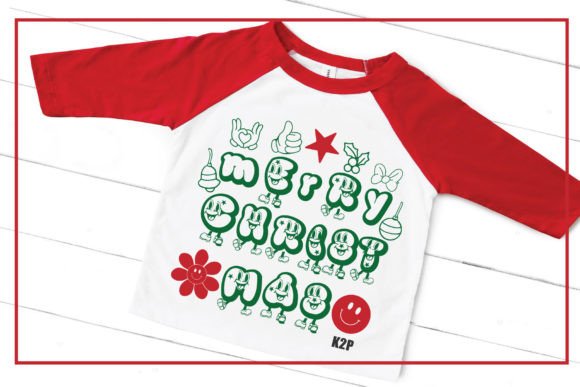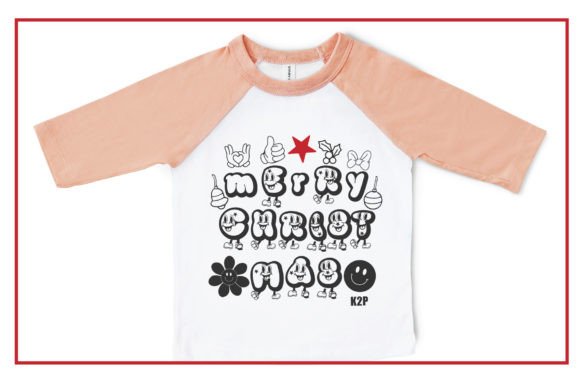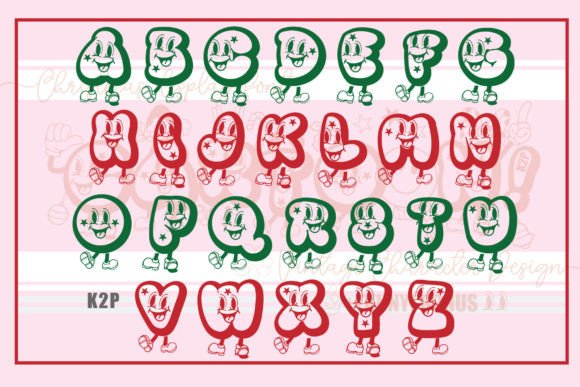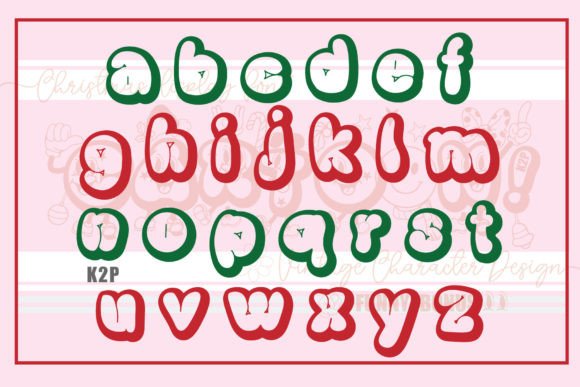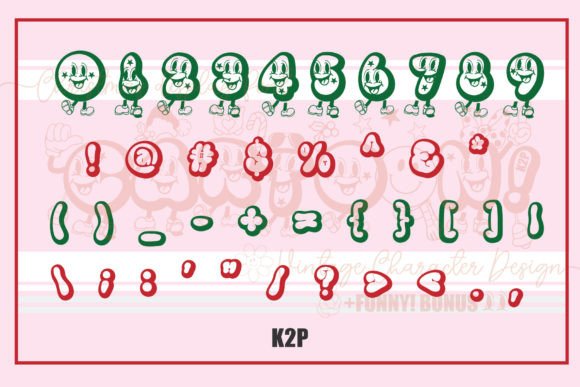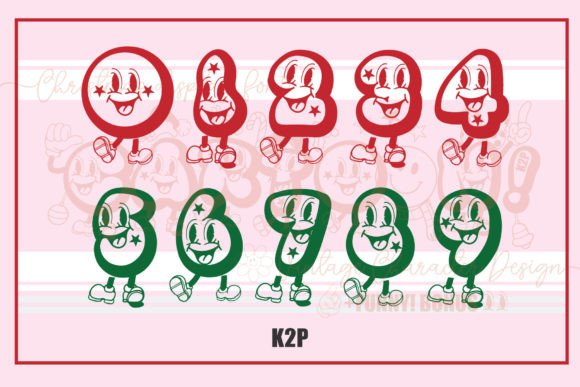
Deck the Halls with a Dose of Whimsy: Unwrapping the Magic of Christmas Cartoon Font
As designers, we’ve all been there – staring at a blank page, struggling to find the perfect font to bring our creative vision to life. And then, like a jolly old elf on a mission, Christmas Cartoon Font swoops in to save the day. With its playful, hand-drawn feel and festive flair, this charming font is the perfect addition to any holiday design project.
Whether you’re crafting a merry card, designing a festive website, or creating a whimsical advertisement, Christmas Cartoon Font is the perfect tool to add a dash of holiday cheer to your work. Its versatility and unique character make it a valuable asset for designers looking to create truly one-of-a-kind designs. So why settle for a generic font when you can bring a little bit of Christmas magic to your work with the Christmas Cartoon Font?
Key Features of Christmas Cartoon Font
- Unique Characteristics: The font features a playful, whimsical design with bold lines, rounded shapes, and festive illustrations, making it perfect for holiday-themed projects.
- Character Set: The font includes a comprehensive character set, including uppercase and lowercase letters, numbers, punctuation marks, and special characters.
- Style Variations: Christmas Cartoon Font comes in multiple styles, including Regular, Bold, Italic, and Bold Italic, allowing for added flexibility and creativity.
Designer Review: Christmas Cartoon Font
At first glance, the Christmas Cartoon Font is a charming addition to any holiday-themed design project. ✨ The font’s playful, handwritten style immediately conveys a sense of joy and festivity, making it perfect for greeting cards, social media graphics, and other festive content.
- ✨ Unique and whimsical design that adds a personal touch to any project
- ✨ Suitable for a wide range of holiday-themed projects, from cards to posters
- ✨ Easy to read, even in smaller font sizes
- ⚠️ Limited flexibility – the font’s playful design may not be suitable for more formal or professional projects
- ⚠️ Not ideal for long blocks of text – the font’s handwriting style can be difficult to read in larger quantities
Overall, the Christmas Cartoon Font is a fun and creative addition to any holiday-themed design project. While it may have some limitations, its unique design and playful style make it a great choice for adding a personal touch to your designs.
The Christmas Cartoon Font is perfect for creating festive holiday cards, invitations, and social media posts. It’s also great for adding a playful touch to your website or blog. You can use it to create eye-catching titles, headings, and captions that will grab the attention of your audience.
To get the most out of the Christmas Cartoon Font, experiment with different font sizes, colors, and styles. You can also combine it with other fonts and design elements to create a unique and festive look. Don’t be afraid to get creative and try new things!